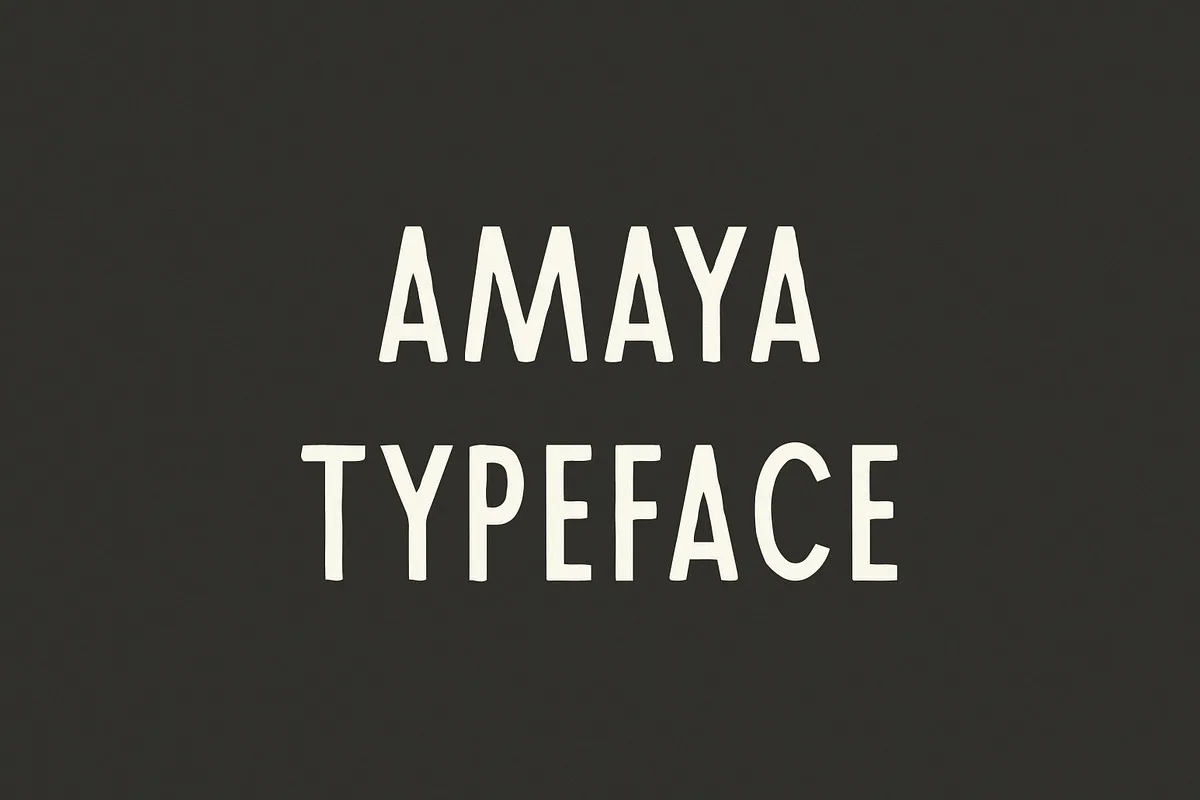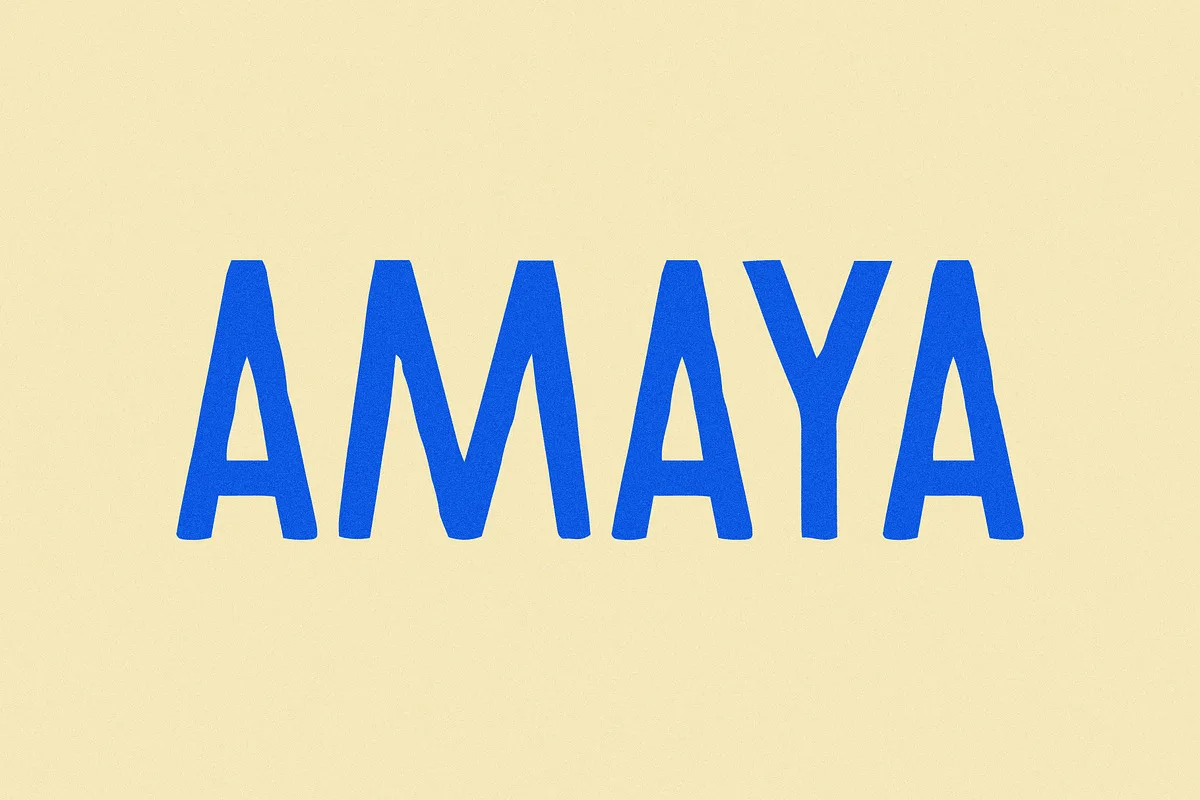
Amaya is a tall display typeface was designed by Taylor Penton. It is a font inspired by a vintage snake bite kit. Tall, hand-drawn forms paired with a few wide stance letters give a balanced contrast. The font itself is almost as nice as the ampersand. Contains all uppercase, numbers and basic punctuation.